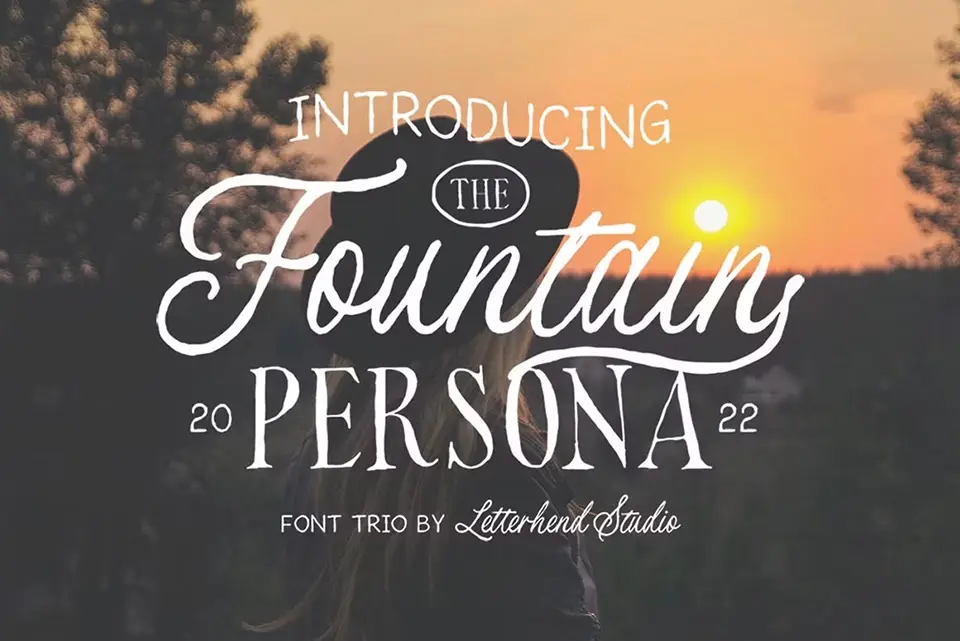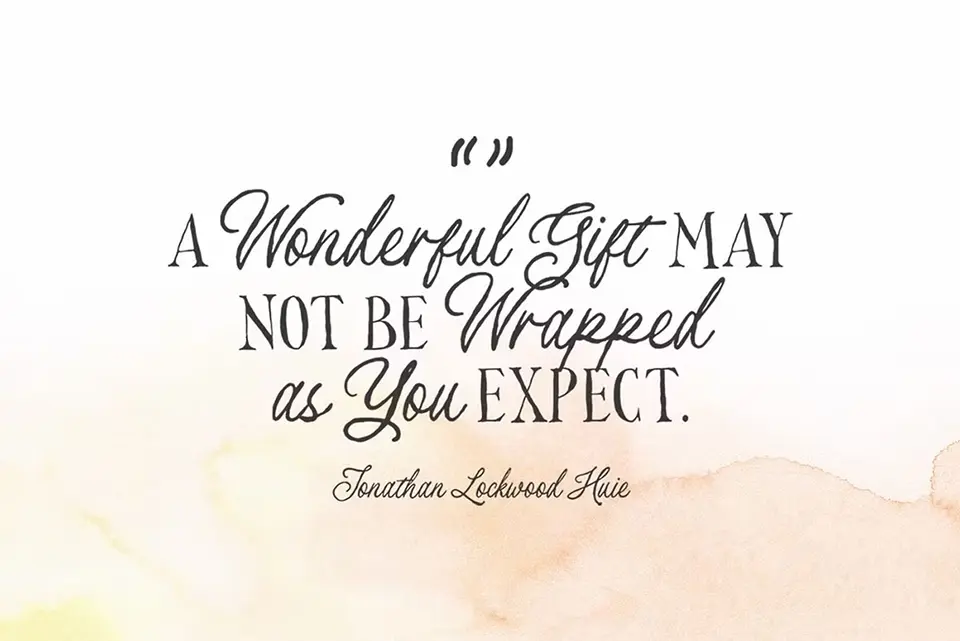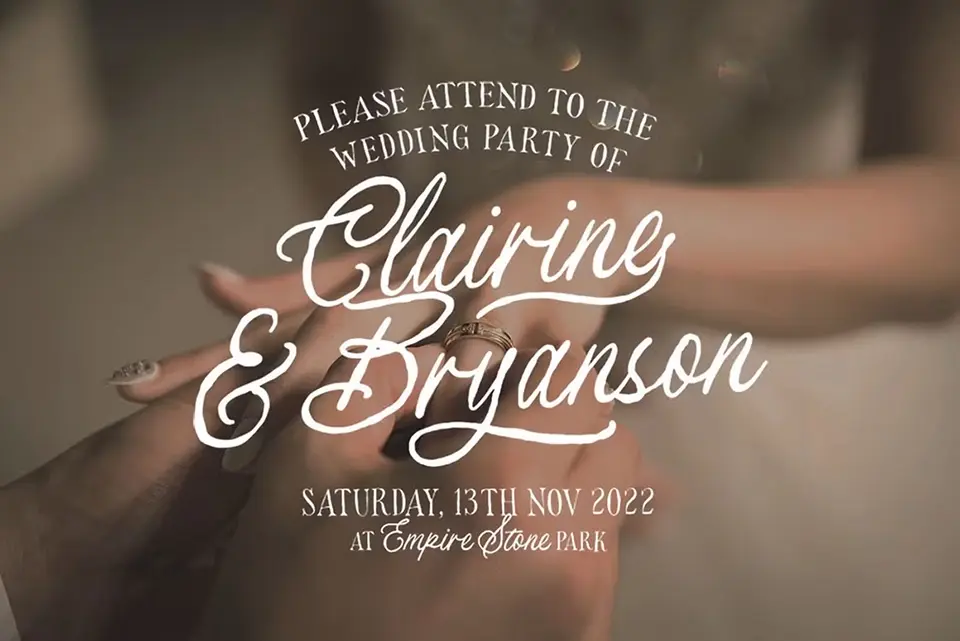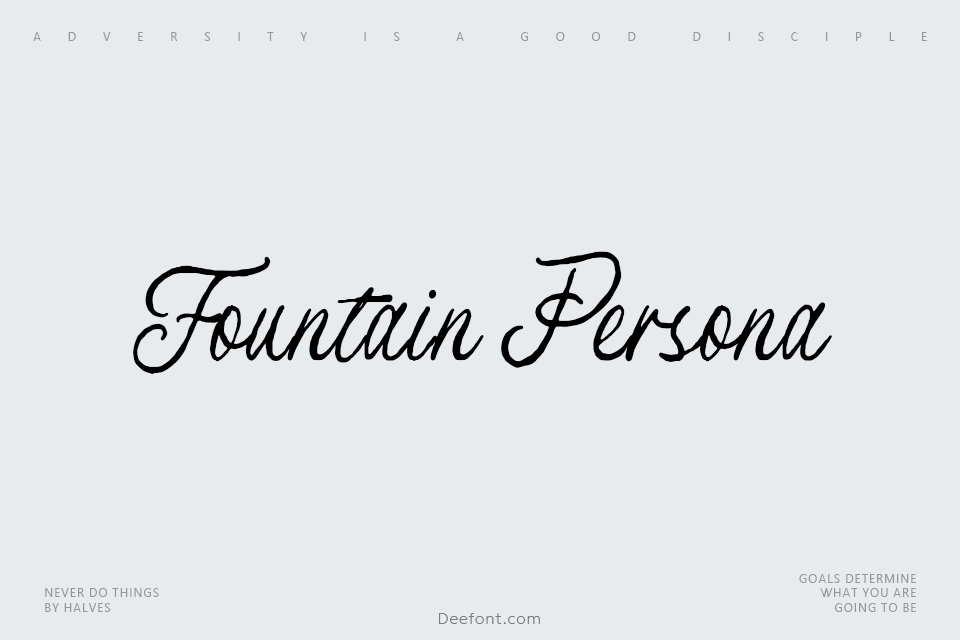
Fountain Persona Font
Fountain Persona is an elegant script and calligraphy font created by Letterhend Studio, featuring authentic handwriting with natural signature styling. Perfect for logos, invitations, labels, and magazine designs, this sophisticated typeface combines organic handcrafted aesthetics with professional typography, offering designers a versatile solution for projects requiring elegant, personalized character and distinctive visual appeal.